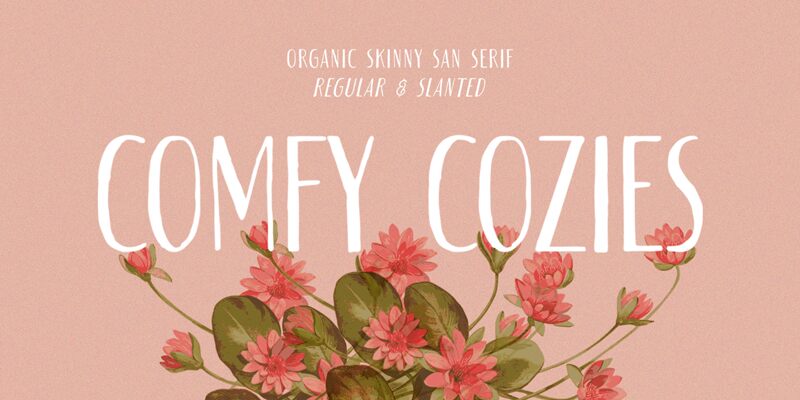
Comfy Cozies, designed by Letterhend Studio, is a distinctive display font that captures an inviting and warm aesthetic. Its slender and condensed form lends a distinctive character to each letter, creating a harmonious blend of playfulness and elegance. The gentle curves and whimsical lines make it perfect for projects that seek to exude comfort and charm.
Ideal for branding, book covers, or any creative venture, Comfy Cozies brings a unique touch that stands out while maintaining readability. Its cozy appeal creates an instant connection with the viewer, making it an excellent choice for designs centered around fashion, hospitality, or cozy home decor themes. This font’s endearing yet refined style ensures it remains versatile across various design applications.